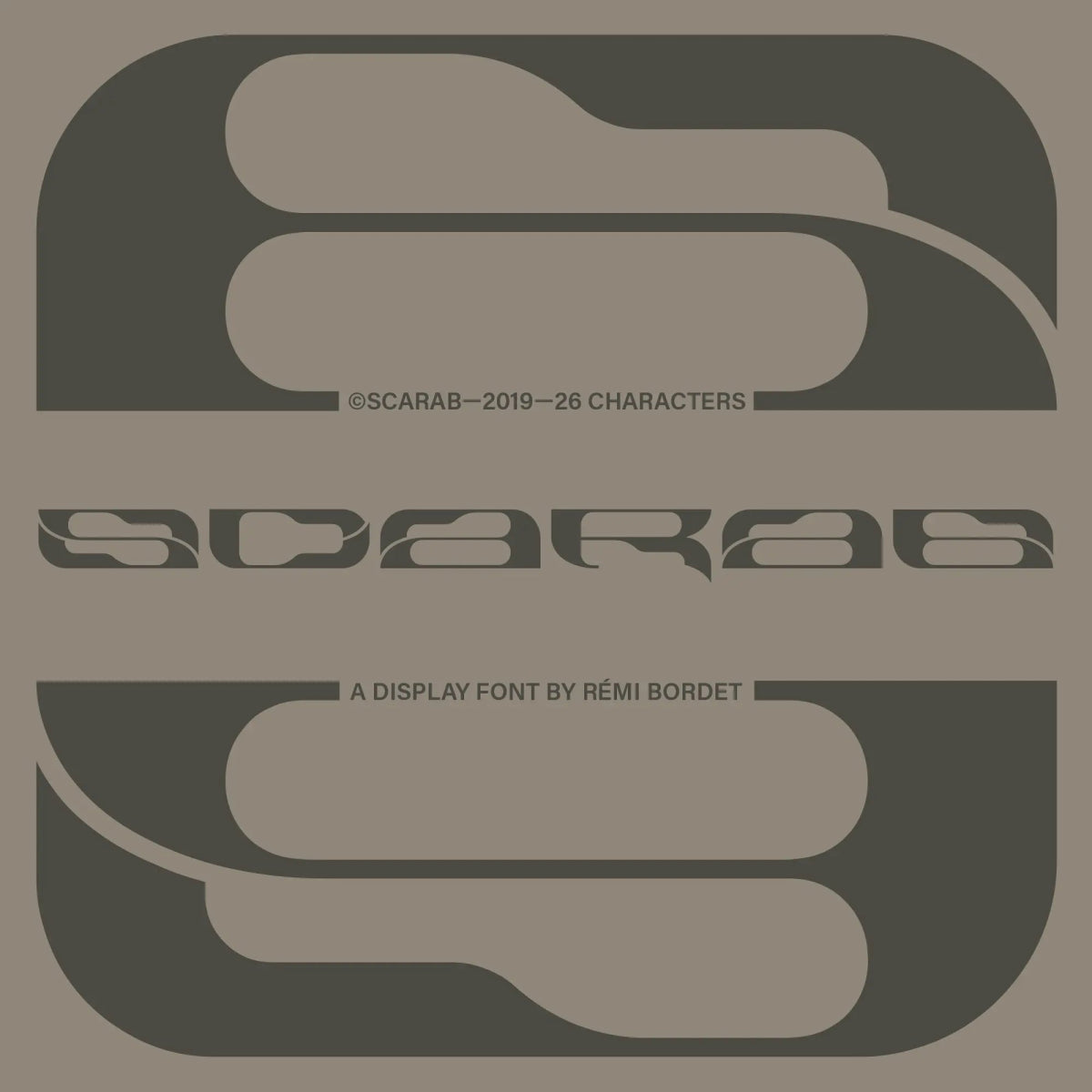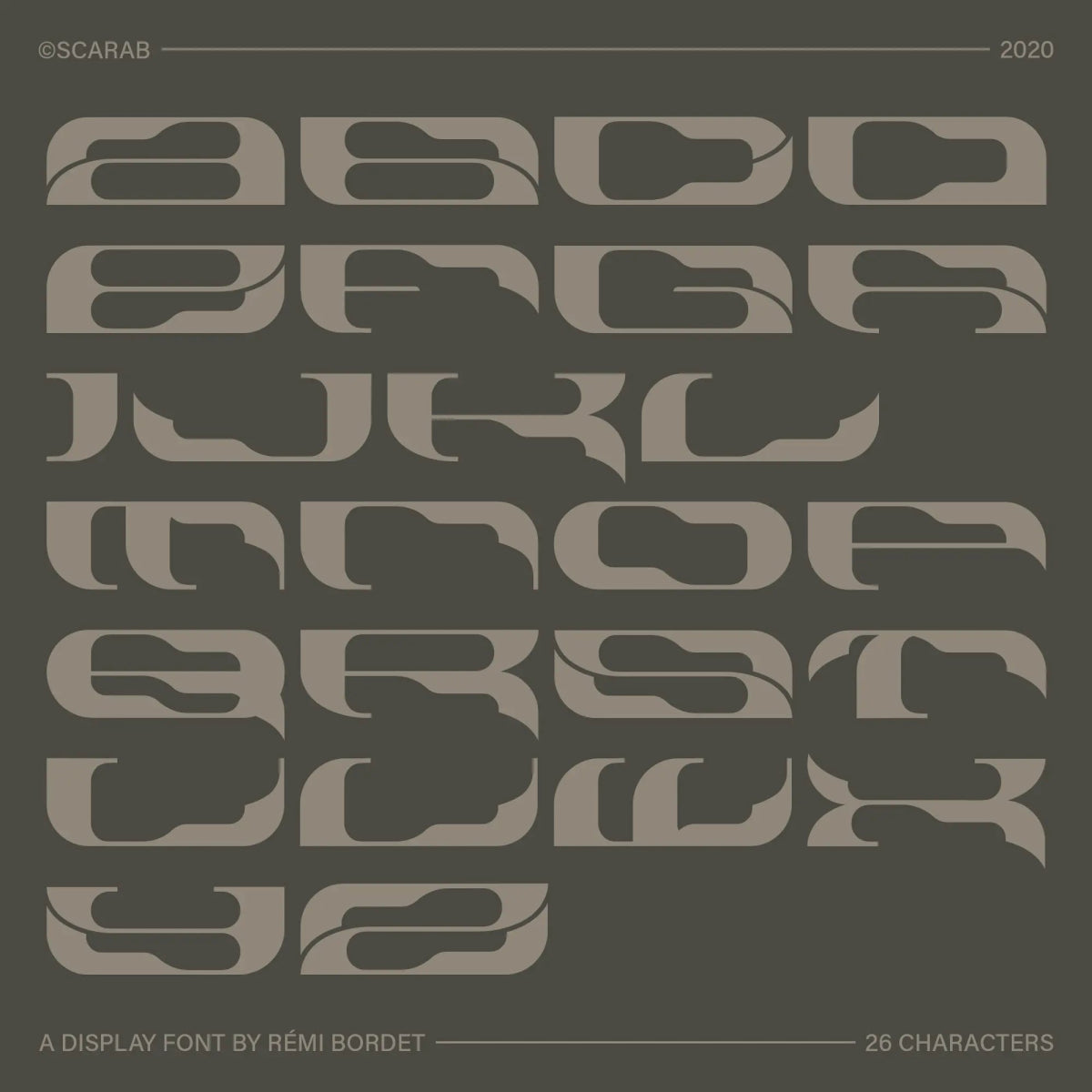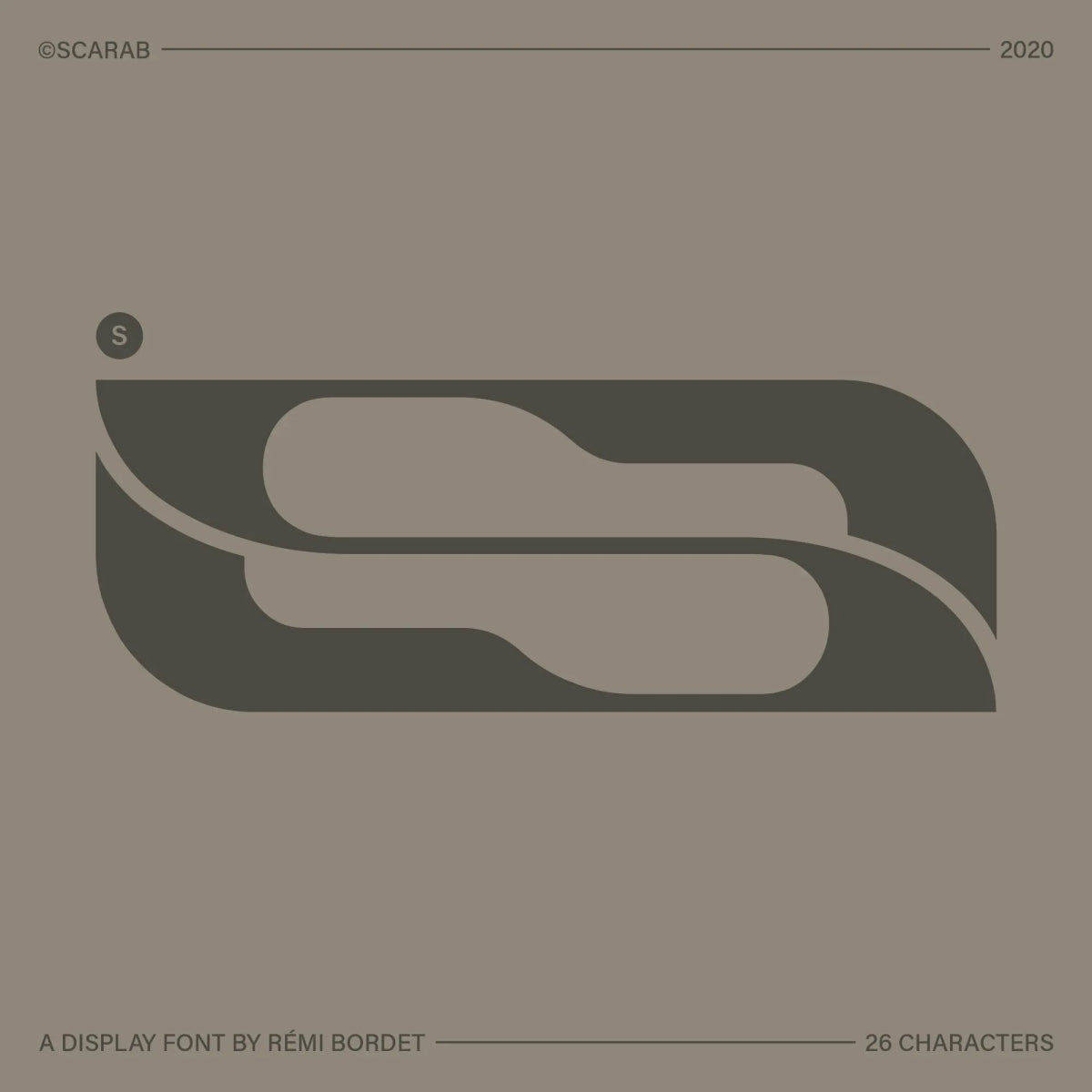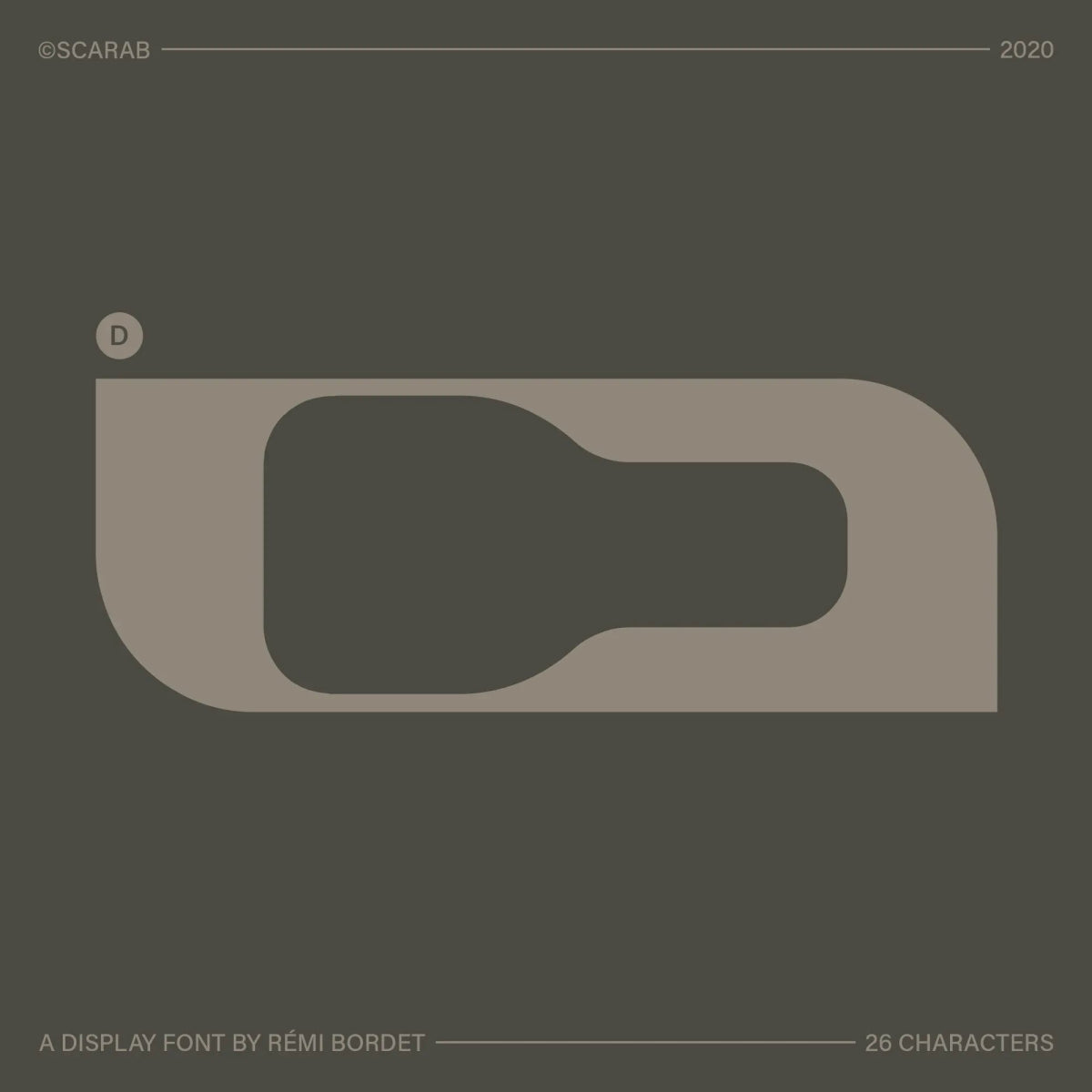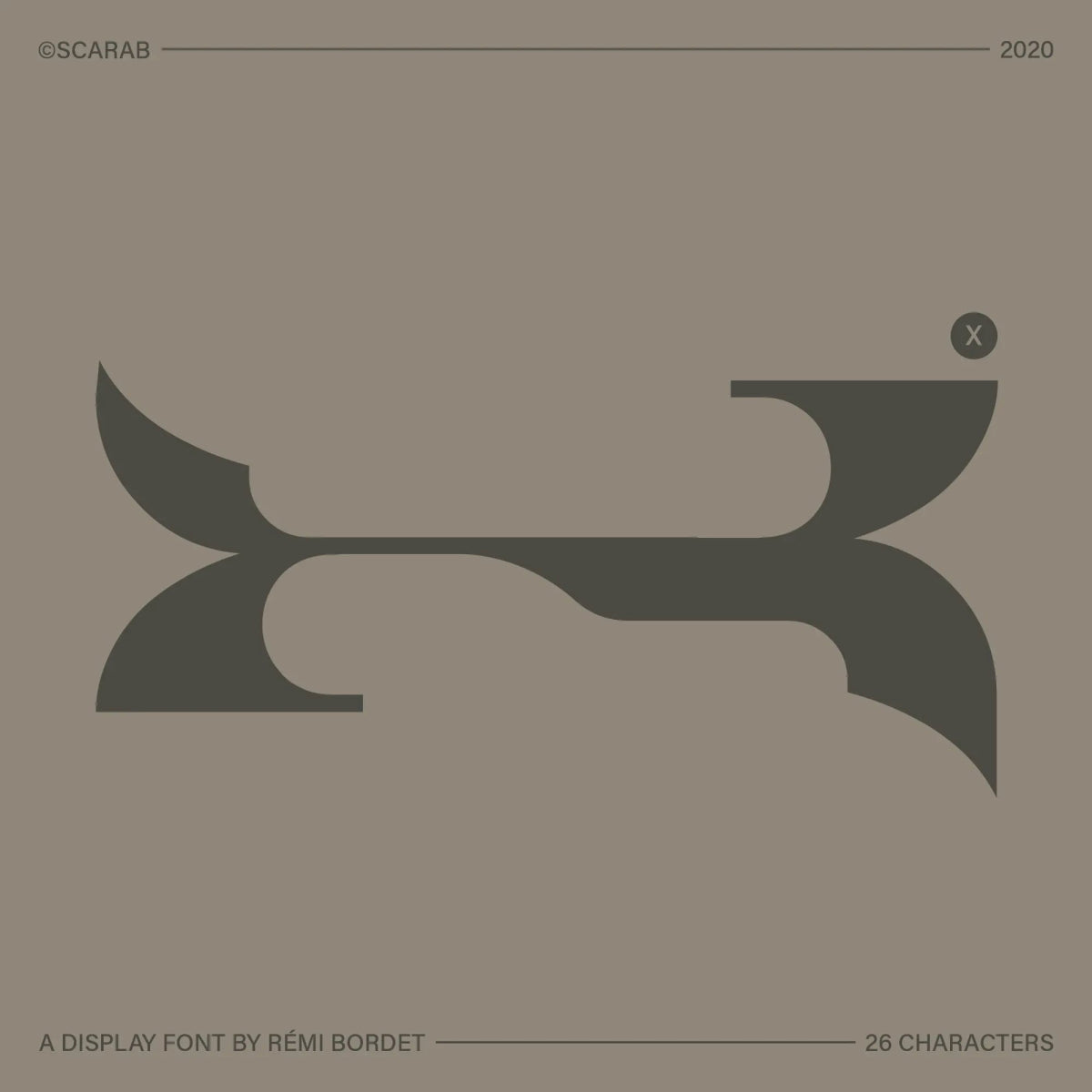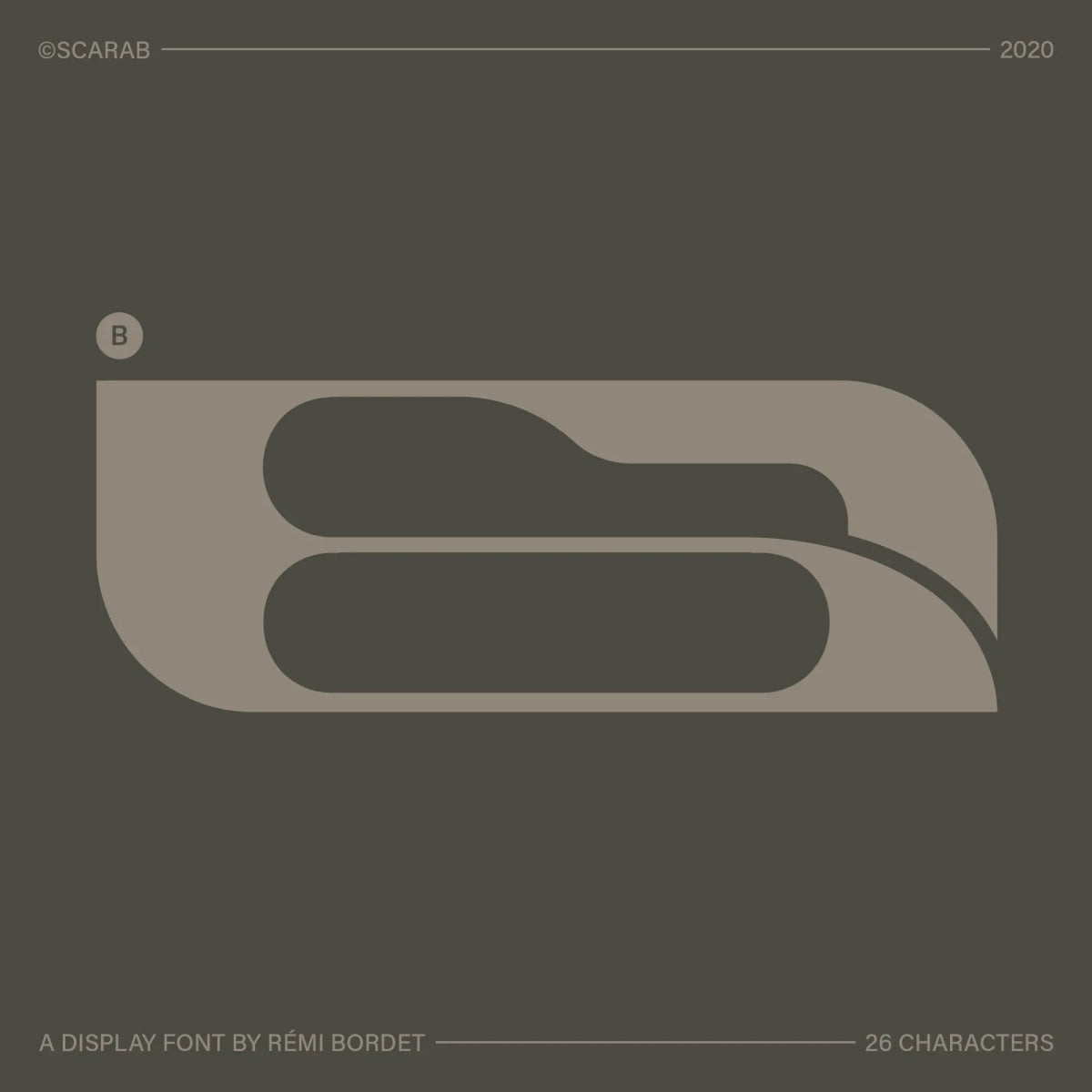
Scarab Display Font
by Rémi Bordet
Scarab is an experimental display font that fuses bold forms with abstract, organic curves. Inspired by ancient motifs and futuristic aesthetics, it’s ideal for album artwork, avant-garde branding, and editorial projects that push visual boundaries.
Font Features
• Full uppercase A-Z alphabet
Rémi Bordet
Rémi Bordet is a french graphic and type designer and artist who creates bold, minimalist posters combining impactful imagery and typography. His work highlights contradictions, both aesthetically and symbolically speaking, through stylistic visual metaphors that blend brutalist aesthetics with emotional depth.